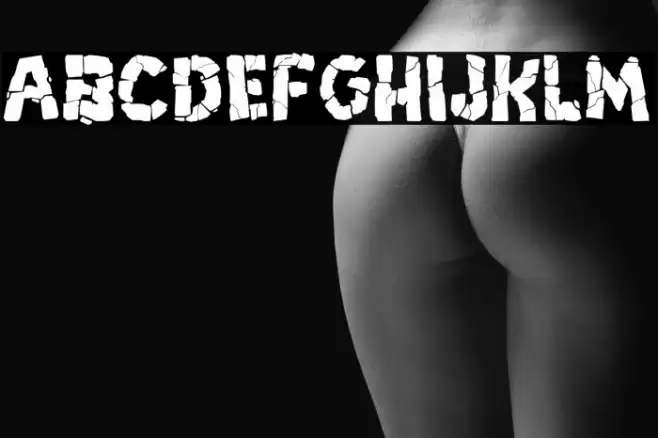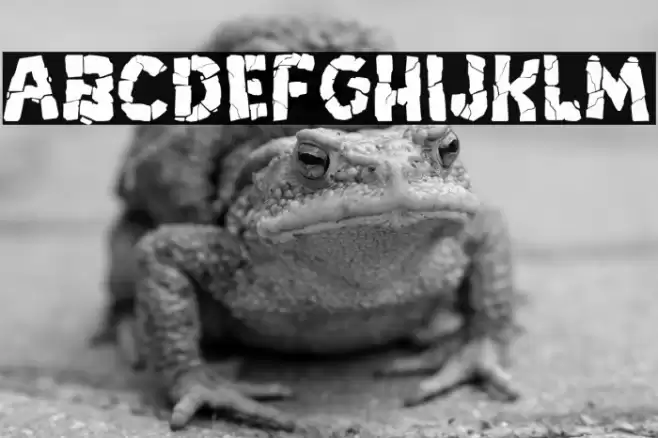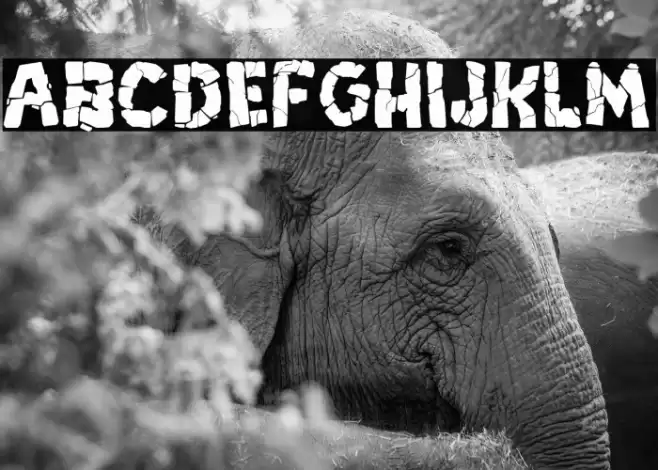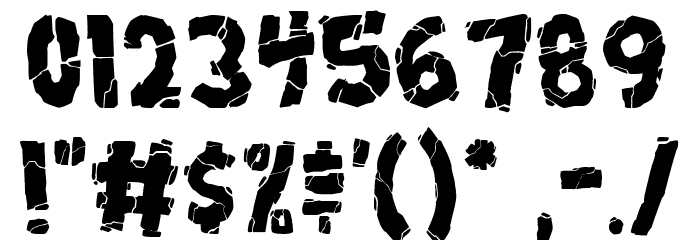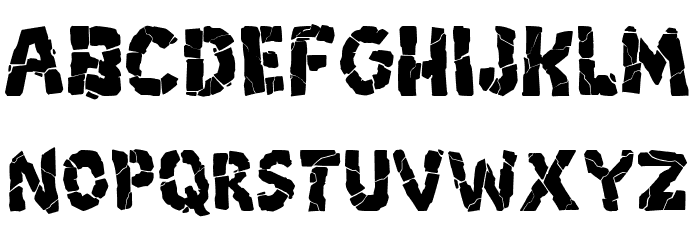
Breakdown PG Font
Breakdown PG Description
A bold, fragmented display font with a distressed, broken appearance, suitable for impactful and edgy designs.
Bold, fragmented display font with a distressed look from Uncategorized fonts.
- Font: Breakdown PG
- Proposed Projects: Posters, album covers, urban-themed designs.